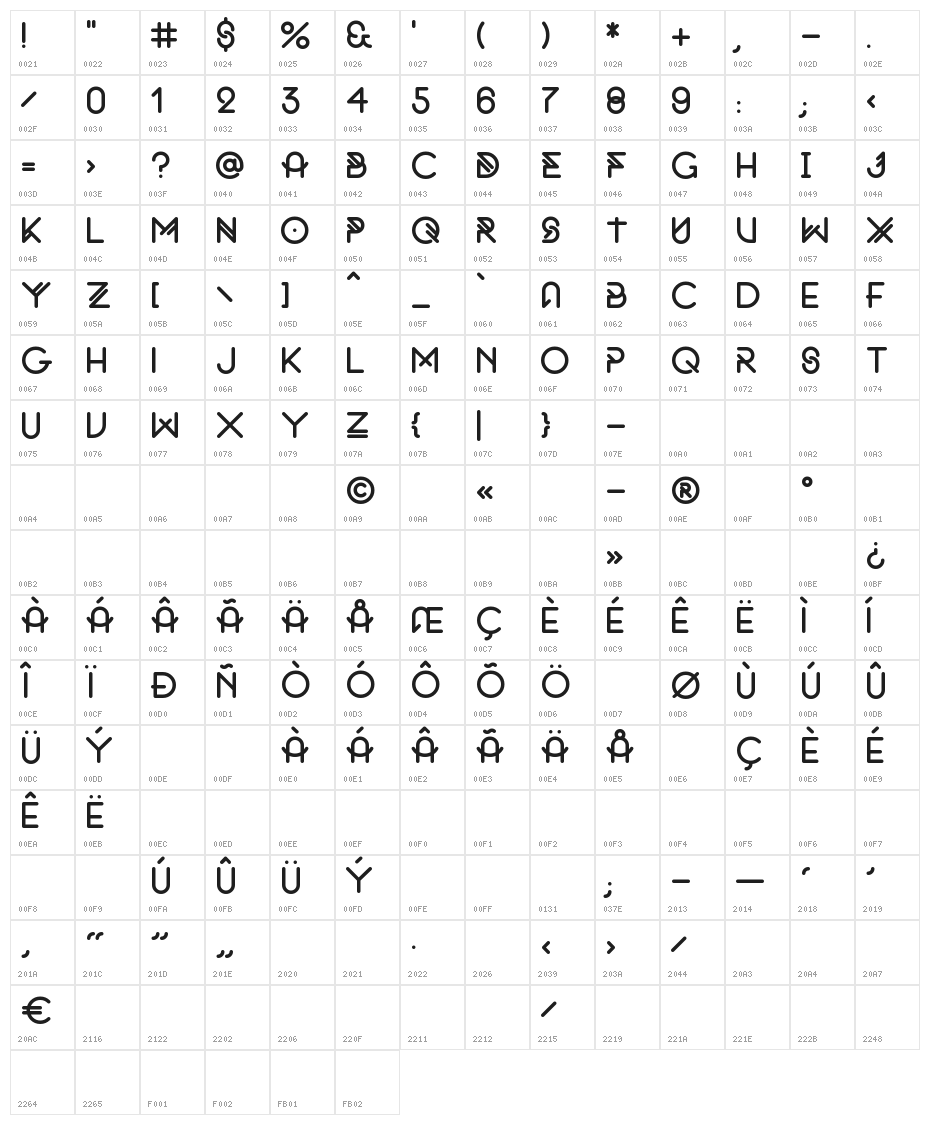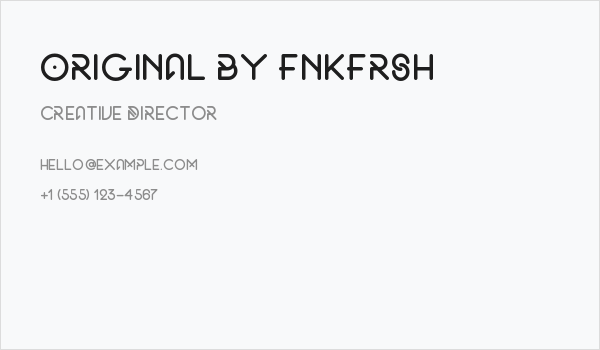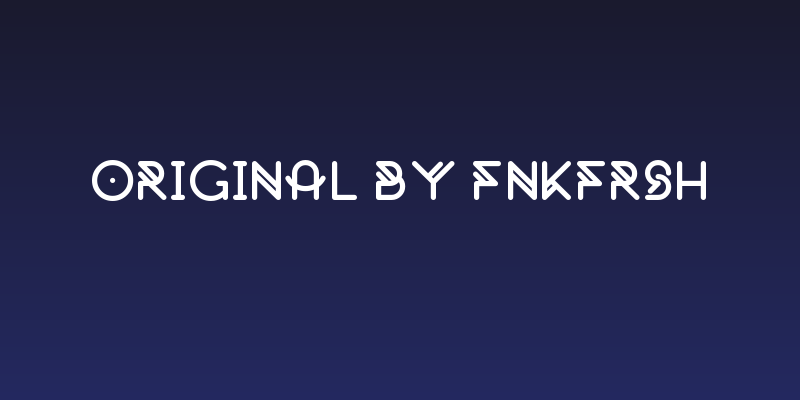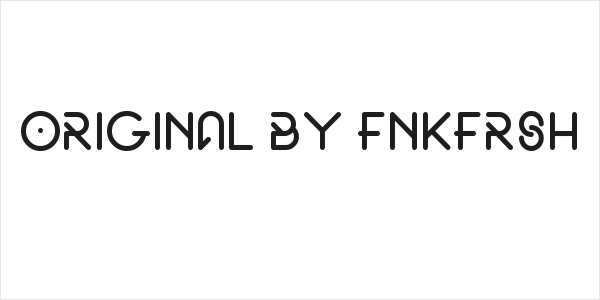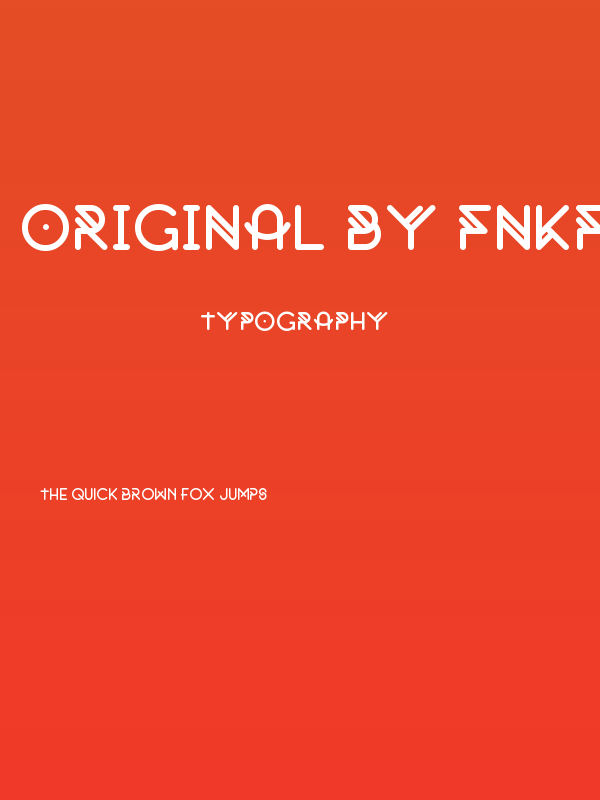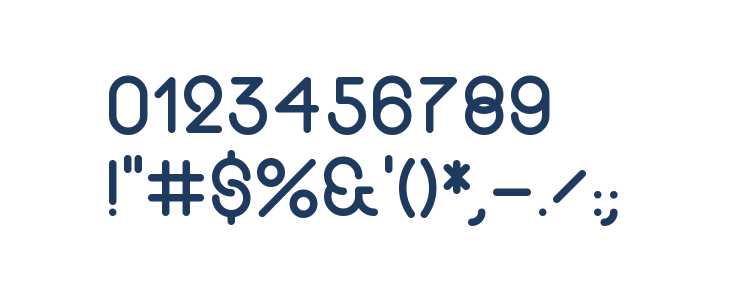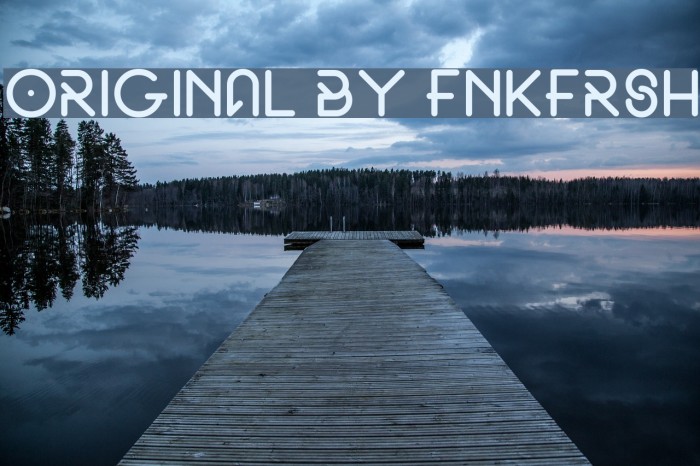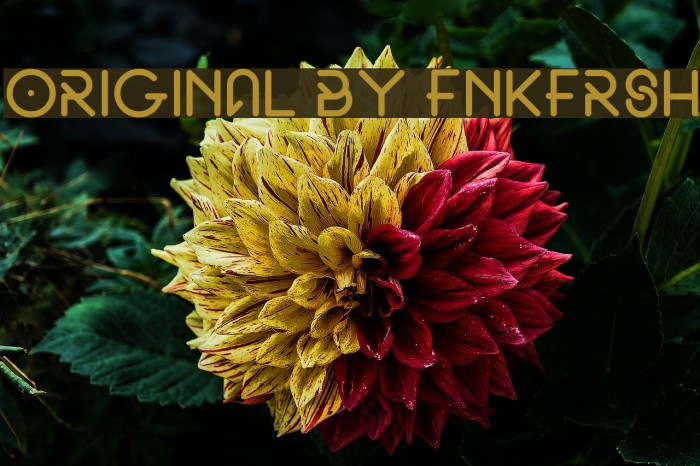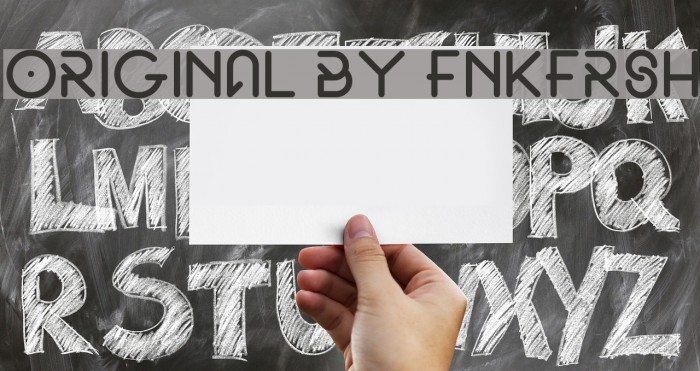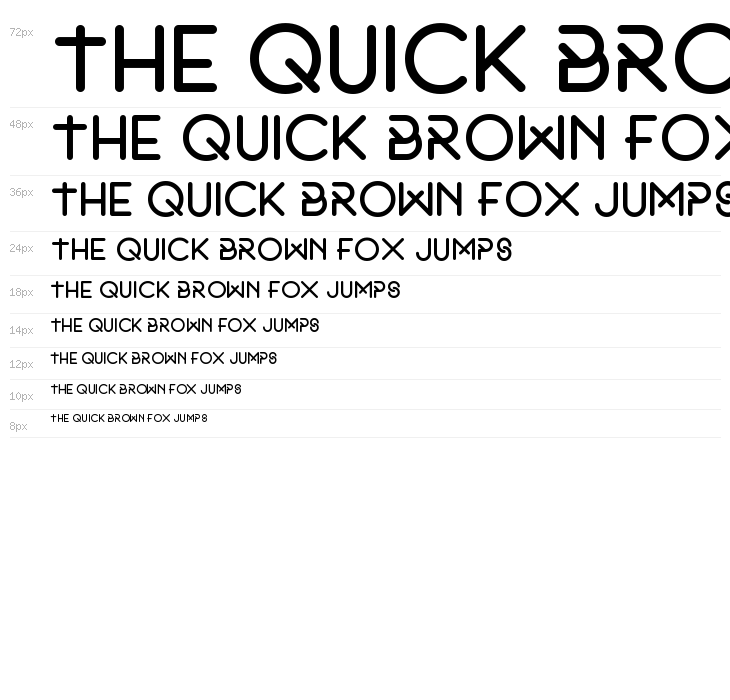
Original by fnkfrsh Font
Original by fnkfrsh Description
This font features a bold, geometric design with a modern flair. The characters are constructed with clean, rounded edges and consistent stroke widths, giving it a sleek and contemporary appearance. The uppercase letters exhibit unique, stylized forms, particularly noticeable in letters like A, B, and R, which incorporate creative cutouts and angles. The lowercase letters maintain a similar geometric style, ensuring uniformity across the typeface. Numbers are equally bold and rounded, providing excellent readability. Special characters are designed to match the overall aesthetic, with a focus on symmetry and balance. This font's distinct style makes it ideal for projects that require a modern and eye-catching typeface.
| Proposed Projects | Ideal for branding, posters, headlines, and digital media that require a modern and striking look. |